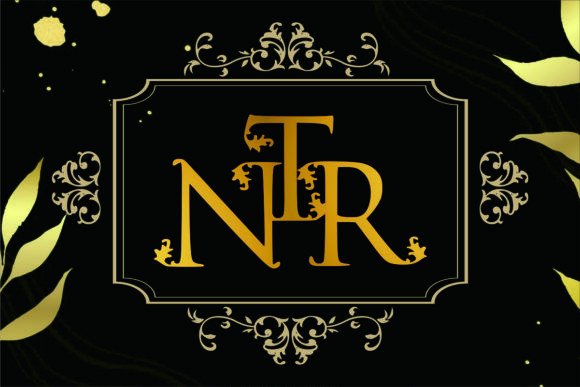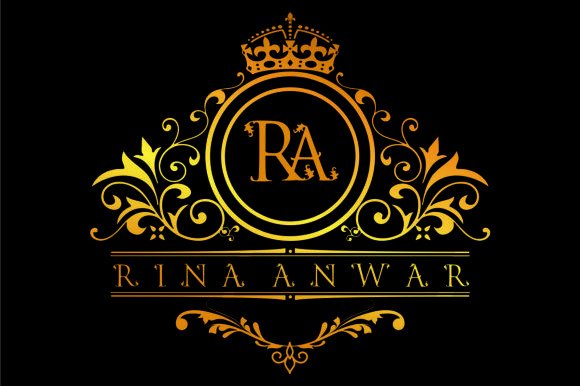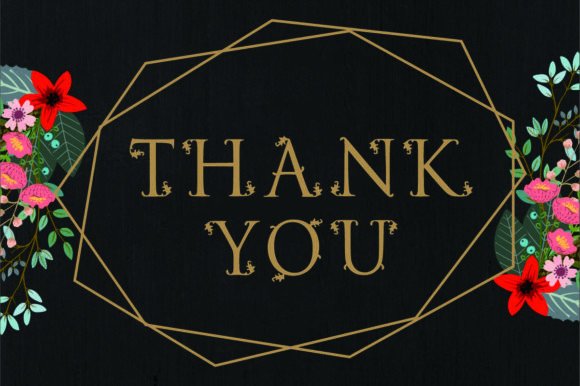
Introduction to Slowfer Font
Slowfer is a stylish serif font that symbolizes beauty and luxury.
You can use it for logos, wedding themes, t-shirts, backgrounds, and more Add this font to your favorite creative ideas and see how it comes to life.
Key Features of Slowfer Font